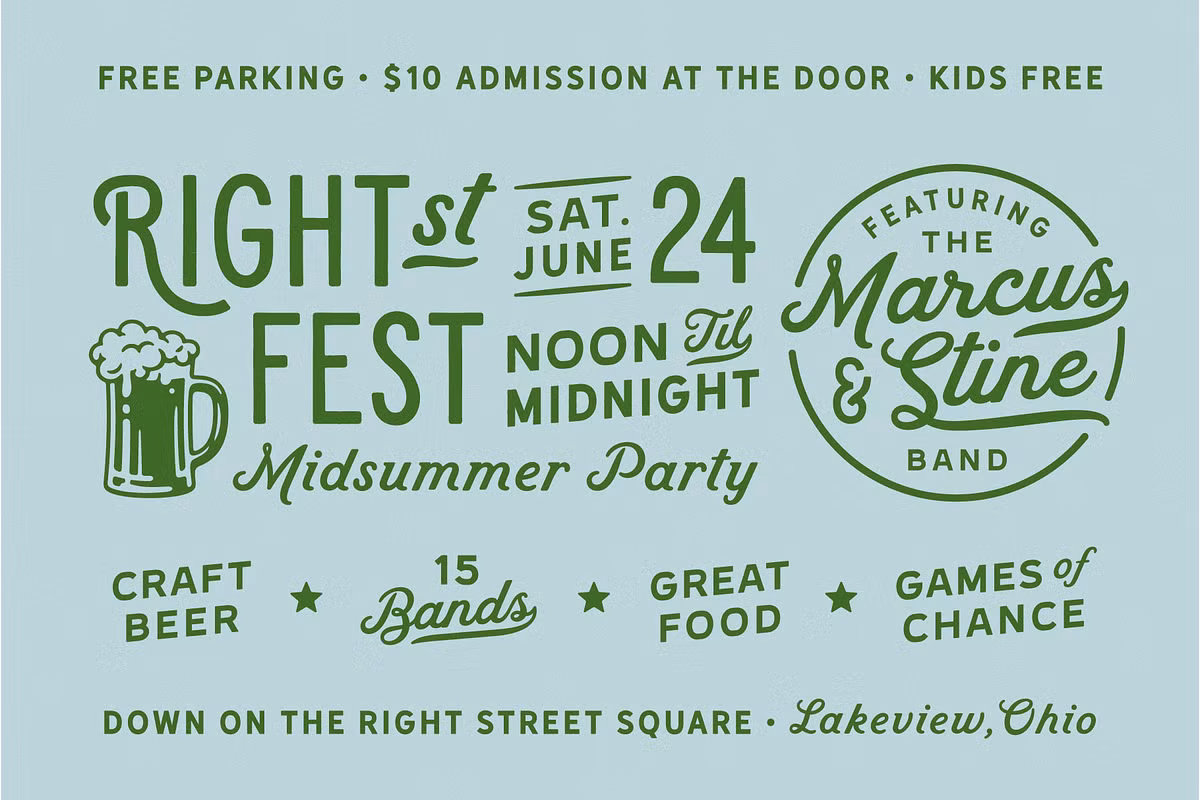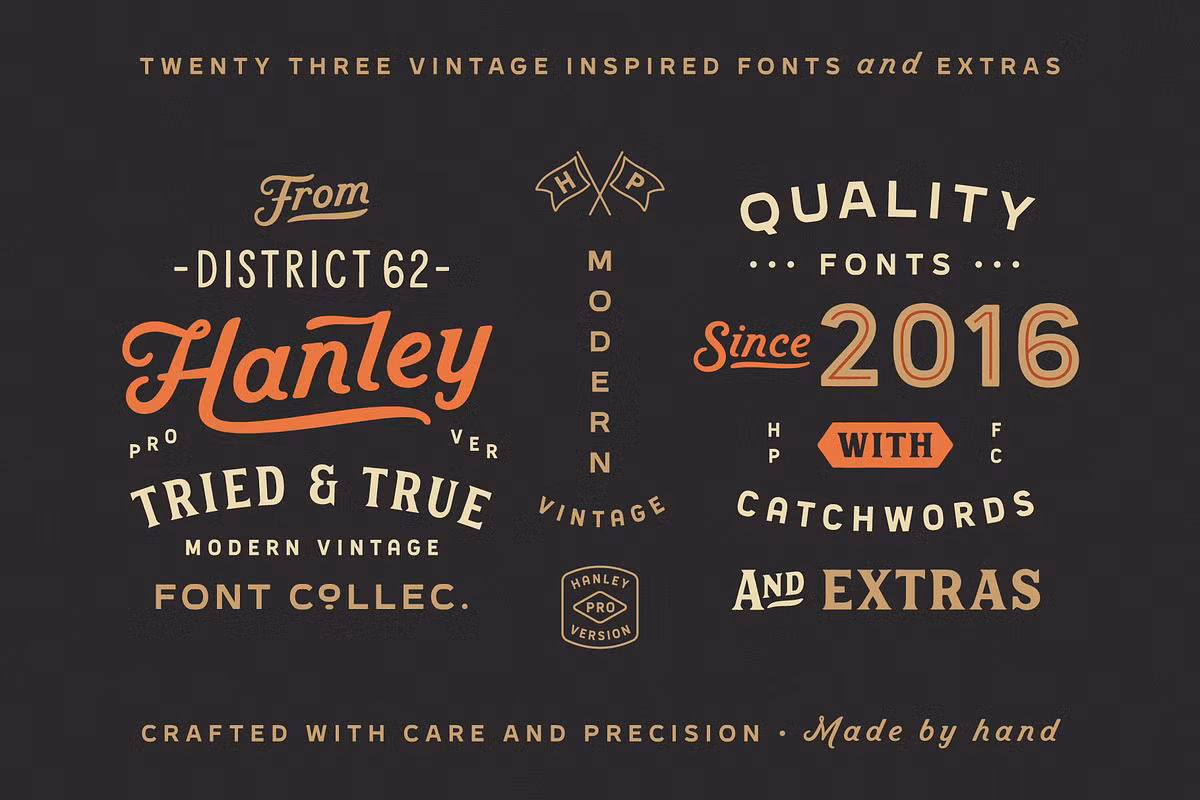
Hanley Pro Font Collection: Expanded Typeface with 10 New Styles
The Hanley Pro Font Collection updates the Hanley font family. The Hanley Pro Font Collection adds ten exclusive font styles. The Hanley Pro Font Collection also provides a set of bonus logos. I have used the Hanley Pro Font Collection in my projects. I find the new styles useful. The Hanley Pro font family gives designers choices for their work. If you are a designer, if you are a brand manager, if you are a typography enthusiast, the Hanley Pro Font Collection can help you with your design projects.
Expanded Typeface Features
When I look at the Hanley Pro Font Collection, I see that the biggest thing is that the Hanley Pro Font Collection has grown from the version. The Hanley Pro Font Collection adds 10 styles that meet design needs.
- Hanley Script Alt: A script font that helps you add personal touches to the designs you make.
- Hanley Italic: Good for emphasizing the text. Hanley Italic adds a feeling of movement and energy.
- Hanley Sans Two and Inline: Give the sans serif look. The inline variation adds a touch of flair.
- Hanley Sans Wide and Extra Wide: Work well for the headlines and the titles, making the text stand out.
- Hanley Slim Bold and Slim Serif Bold: Combine elegance with strength, suitable for body text and headings.
- Hanley Block Styles: Now include caps and extra alternate characters, aiming for visibility and engagement.
I see the styles meet the needs of design. I see the Hanley Pro collection as an addition to any designer’s toolkit. The styles are easy to use.
Character Sets and Language Support
I notice that the Hanley Pro collection offers foreign language support. I see that the Hanley Pro collection lets my designs reach an audience while keeping the style. I find that the Hanley Pro collection’s language support is vital in the market today. Clear communication across languages matters a lot.
Use Cases for Hanley Pro
I find the Hanley Pro Font Collection very versatile. The Hanley Pro Font Collection can be used in applications:
- Branding: The simple script and the bold sans-serif styles work well for making logos.
- Marketing Materials: Brochures, flyers, and social media graphics provide styles that give the flexibility needed for marketing needs.
- Web Design: The clean lines and modern look of Hanley Pro improve readability and boost user engagement.
- Print Media: From magazines to posters, the collection offers styles that can be used for various designs.
I find these use cases show how adaptable the Hanley Pro Font Collection is. The Hanley Pro Font Collection works well as a resource for any designer who wants to try ideas and inspire.
When I work with typography, I see that pairing fonts makes the design better. I list some pairing suggestions for the Hanley Pro Font Collection:
- Combine Hanley Script Alt with Hanley Sans Wide for a playful yet sophisticated look.
- Use Hanley Italic alongside Hanley Slim Bold to create a dynamic contrast in headings and subheadings.
- Pair Hanley Sans Two with Hanley Block Styles for a modern and trendy appearance ideal for promotional materials.
- For elegant invitations or formal announcements, consider pairing Hanley Script Alt with Hanley Serif Bold for a classic touch.
When I use these pairings, I see the visual impact of the designs improve. I notice the change. When I use these pairings, I also see a look that connects with the audience.
The collection includes guidance on accessing characters. I follow the guidance to use the features of the Hanley Pro fonts. The guidance is very helpful for people who do not have software that fully supports OpenType features.
The Hanley Pro Font Collection updates the Hanley font family. The Hanley Pro Font Collection adds ten styles that make the fonts more versatile and easier to use. The Hanley Pro Font Collection includes character sets and foreign language support. The Hanley Pro Font Collection works for various uses. Designers can use the Hanley Pro Font Collection to create stylish typography. If a designer works on branding, marketing materials, or digital content, the Hanley Pro Font Collection gives the tools needed to improve the design projects. I have used the Hanley Pro Font Collection on projects, and the Hanley Pro Font Collection works well. Explore the collection today. Look at the fonts. See how the fonts can change your endeavors. The fonts can make your creative endeavors feel fresh. I have used the fonts for my endeavors, and the fonts helped. I think you will find the collection useful.